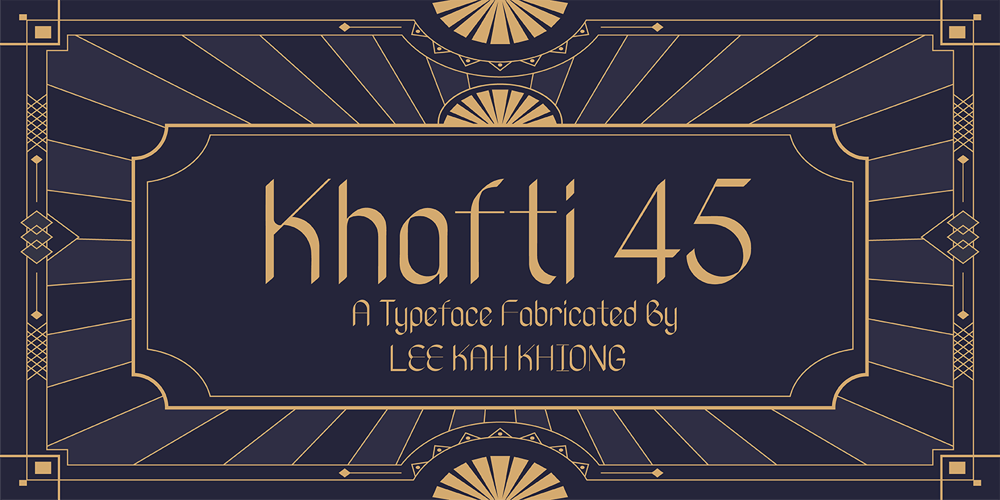
Khafti 45 Font Family was designed by Lee Kah Khiong and published by Kah Khiong Design. Khafti 45 contains 1 styles and family package options. Khafti 45 is first font born in the Khafti Family. It’s unique characteristic is the fusion of art deco and gothic. The stroke of the font is mimicking the flat tip or chisel tip, given it an unique 45 degree slope. The contrasting thickness, thick & thin, of the stroke further enhancing the art deco characteristic in it. It looks like blackletters from Medieval time, but also looks like a modern 20’s & 30’s!